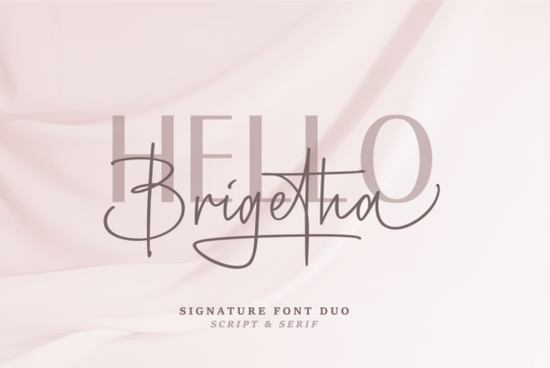
If you're looking for a font pair that feels both timeless and personal, Brigetha Font might be exactly what you need. It combines an elegant serif with a flowing cursive script, making it a natural choice for wedding invitations, signature logos, place cards, and branding projects. Designers and small business owners often need typefaces that feel authentic without being overly decorative, and this duo delivers that balance. Whether you're crafting a logo for a boutique bakery or designing save-the-dates, Brigetha gives your work a handcrafted feel that stands out.
How can you use Brigetha Font in your projects?
Because Brigetha includes both a serif and a script, you can mix and match them to create contrast. The serif works well for body text or more formal headings, while the cursive adds a personal, almost handwritten touch. Here are some practical ways to put this font pair to use:
- Wedding stationery – Use the script for the couple's names and the serif for event details. The combination feels romantic but still readable.
- Signature logos – The cursive gives a custom, hand-drawn look that works well for photographers, florists, or wedding planners.
- Greeting cards – Pair the two fonts to separate the message from decorative headers.
- Social media graphics – Use the script for quotes and the serif for longer captions.
- Label or product packaging – A small brand selling handmade goods can use Brigetha to reinforce an artisanal feel.
What makes Brigetha Font different from other font pairs?
Many font duos look good but don't work well together in practice. Brigetha is designed so the two styles share similar proportions and stroke widths, which makes them visually cohesive. The serif isn't too heavy, so it doesn't overpower the script. That's important when you're mixing fonts in a single layout, like a logo with a tagline.
Another thing to note is the versatility. While many script fonts are only suited for formal occasions, Brigetha's serif leans more toward classic than stuffy. You can use it for anything from a rustic barn wedding invitation to a modern brand identity. The cursive has enough character to feel personal without being hard to read, which is a common problem with overly flourished scripts.
If you're working on projects that need a softer, more romantic look, consider pairing Brigetha with a simple sans-serif for contrast. But honestly, the duo is strong enough to stand on its own for most purposes.
When choosing any font, think about the emotion you want to convey. Brigetha leans warm and inviting, so it works well for personal projects, small businesses, and anything that needs a human touch. Avoid using it for very technical or corporate materials, where a clean sans-serif might be more appropriate.
- Decide where the script will go – Use it sparingly for names, headings, or short phrases. Too much cursive in a block of text can be hard to read.
- Test both fonts together – Create a sample layout with a name in the script and details in the serif to see how they balance.
- Adjust letter spacing – Script fonts often need tighter tracking for a connected look, while serifs benefit from a little extra space.
- Consider your paper or background – Brigetha looks especially nice on cream or textured paper, but also works well on digital screens.